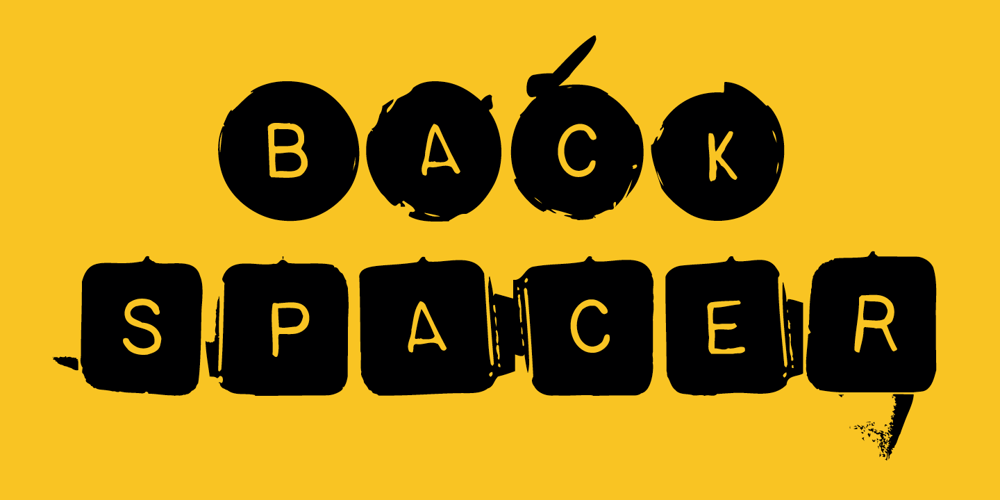
Backspacer
Backspacer font
Backspacer Font Family was designed by Nancy Mazzei, Brian Kelly and published by Emigre. Backspacer contains 2 styles and family package options. Years ago, by happenstance, designers Nancy Mazzei and Brian Kelly found an old decrepit typewriter in an abandoned lot with tall grass in Brooklyn. They kept it around their apartment for two years. Then one day they decided that it was time to move and they planned to throw the old typewriter away. But it was so beautiful they wanted to keep at least a part of it. So they decided on keeping the keys. They kept the keys in a brown bag until one fine day the keys were introduced to a camera. It was a match made in heaven that resulted in some beautiful quirky images of typewriter keys. These images were the inspiration for Backspacer. They were scanned, traced and turned into a working typeface by Zuzana Licko.